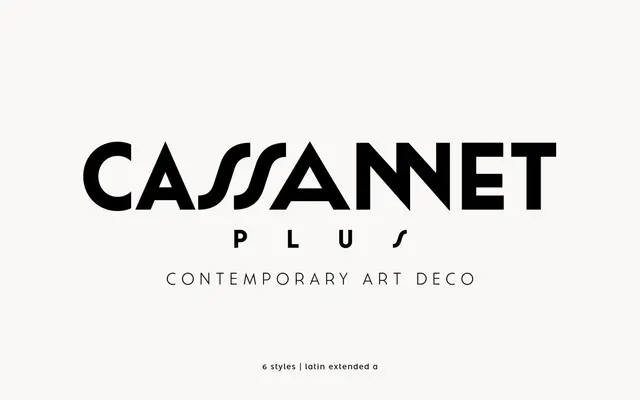
Cassannet Plus
atipo foundry · Atipo · 2015
A geometric art deco display family by atipo inspired by A. M. Cassandre, running from Thin to Ultra for poster and identity display work.
A geometric display family by atipo foundry inspired by the poster lettering of A. M. Cassandre. Cassannet Plus comes in six weights from Thin to Ultra, with stylistic alternates and discretionary ligatures that allow the type to be packed for poster and editorial display, plus an extended Latin language set. Note the alternates and discretionary ligatures are not included in the heaviest Black and Ultra weights.
A geometric art deco display family inspired by the lettering of French poster artist A. M. Cassandre. Six weights from Thin to Ultra carry forward the Cassandre tradition of bold, modernist poster type.